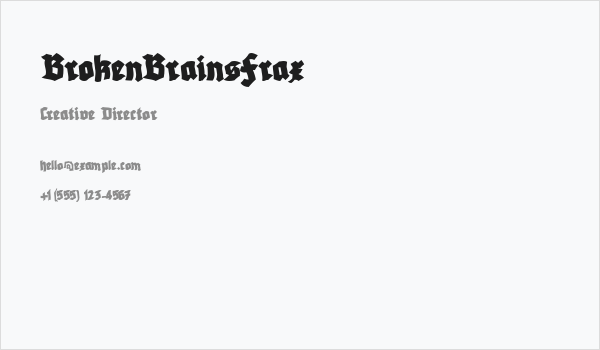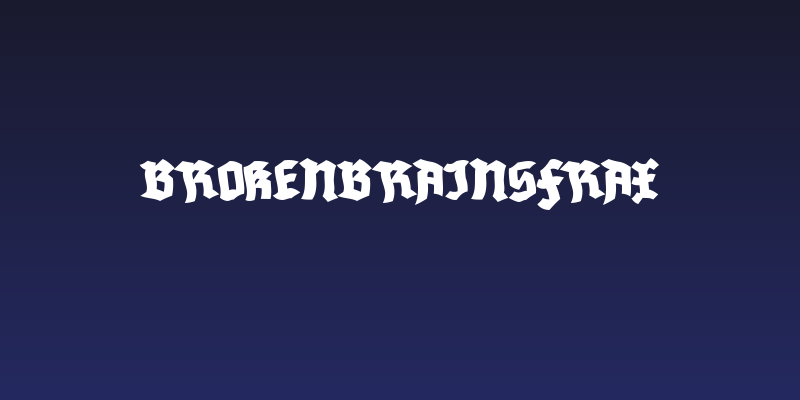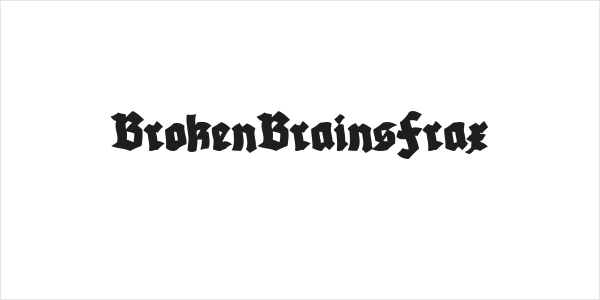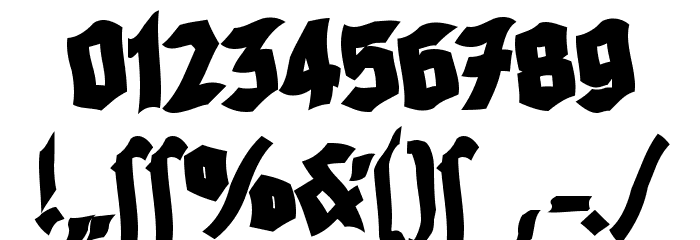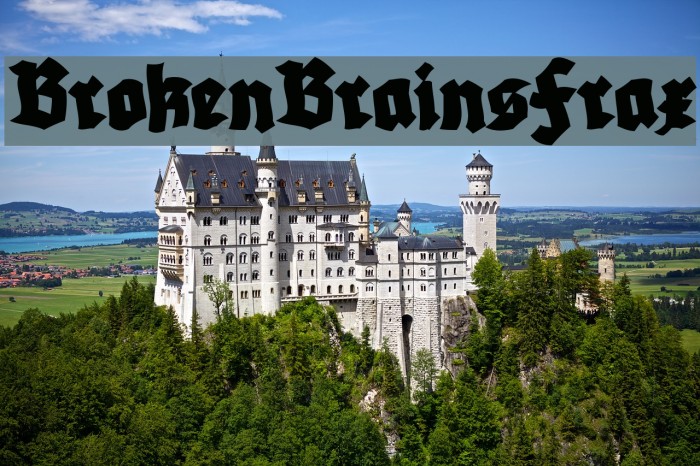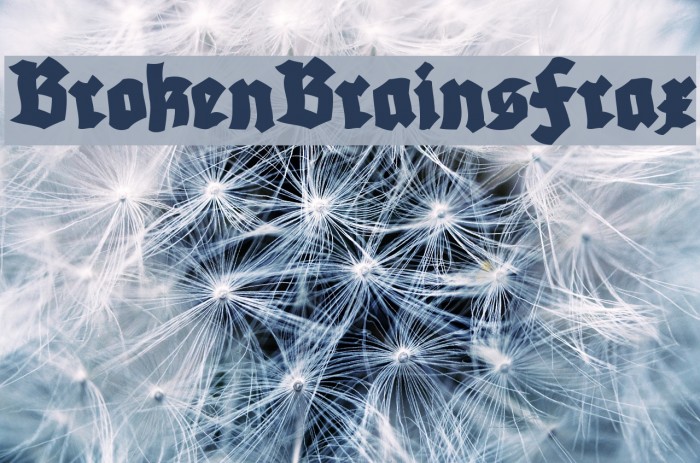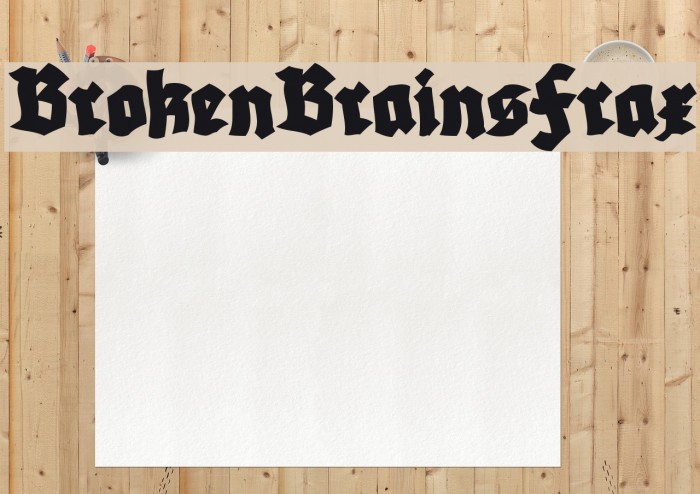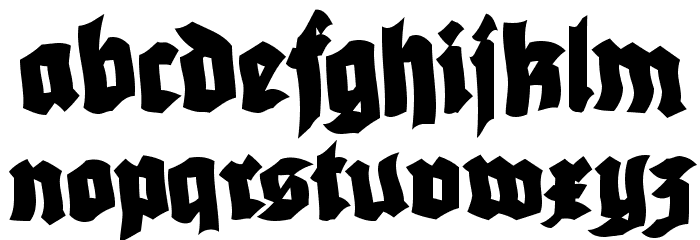
BrokenBrainsFrax Font
BrokenBrainsFrax Description
This font is a bold and striking blackletter style, characterized by its sharp, angular lines and dramatic presence. The uppercase and lowercase letters maintain a consistent weight, with thick strokes and pointed serifs that give it a gothic and medieval feel. The numerals and special characters follow the same design principles, ensuring a cohesive look across all glyphs. The font's unique style makes it suitable for projects that require a historical or edgy aesthetic.
| Overall Style | Gothic |
| Use Case | Logos, Headlines, Posters |
| Proposed Projects | Ideal for use in branding for edgy or historical-themed projects, album covers, posters, and tattoos. |